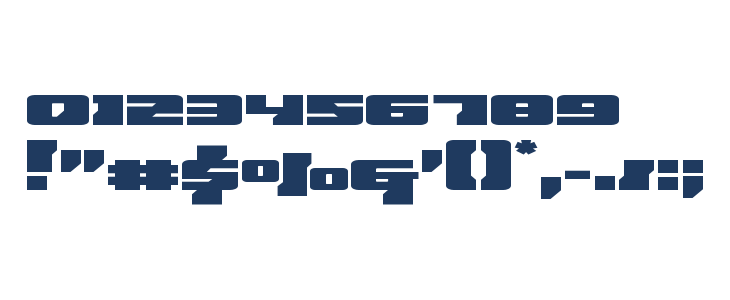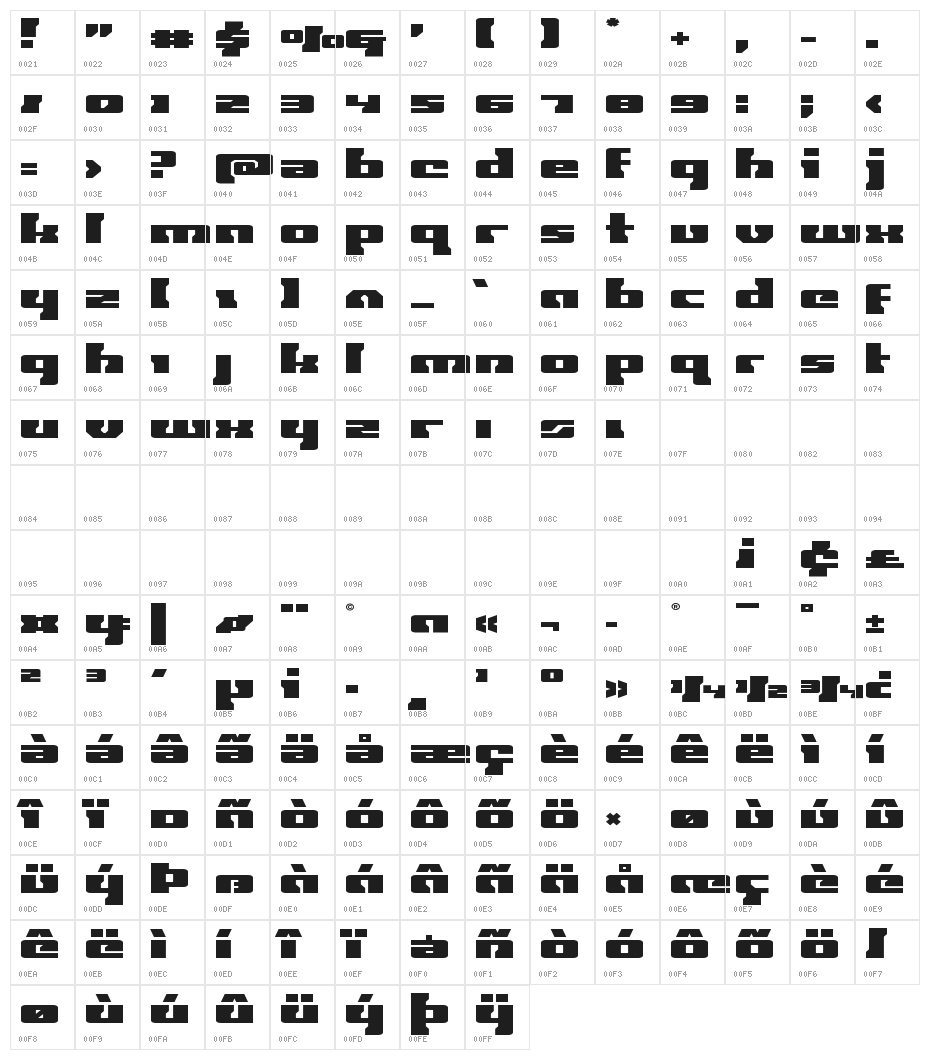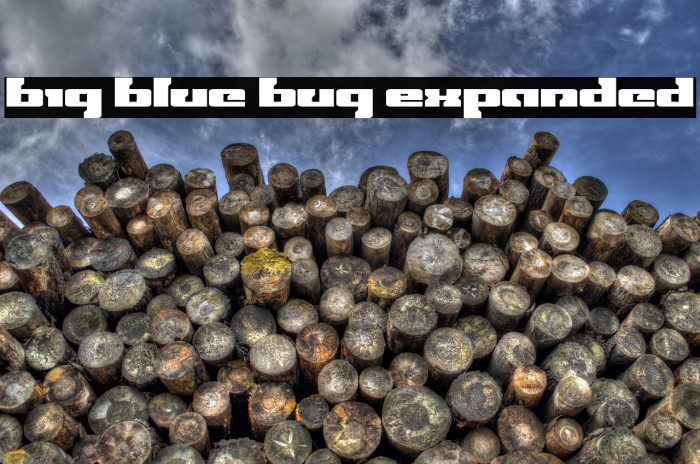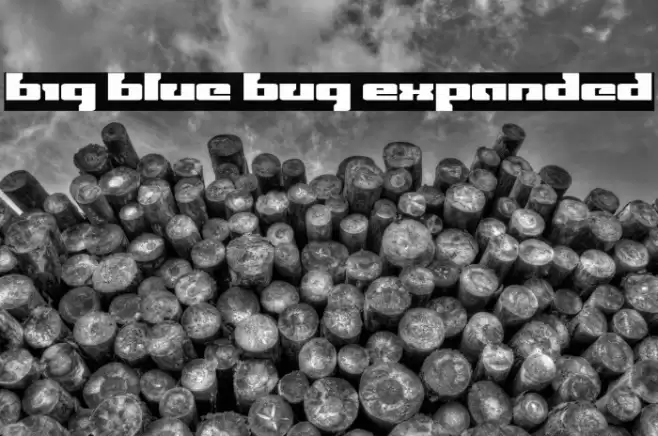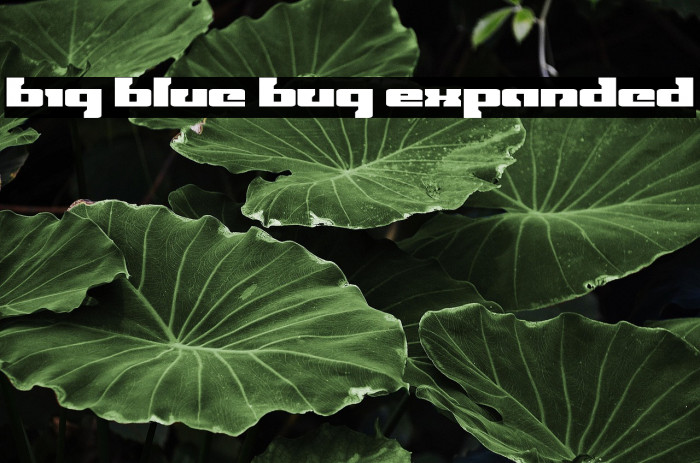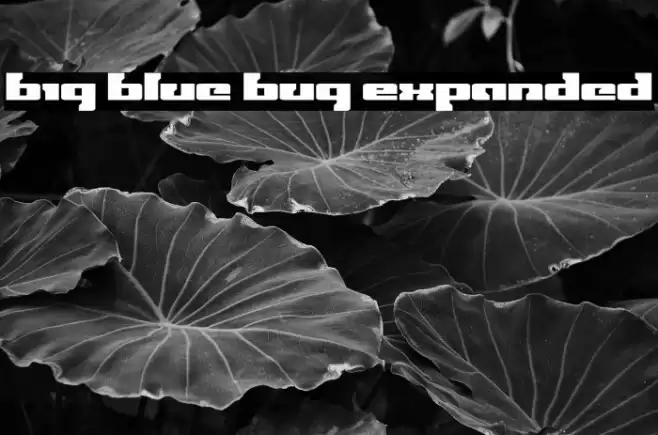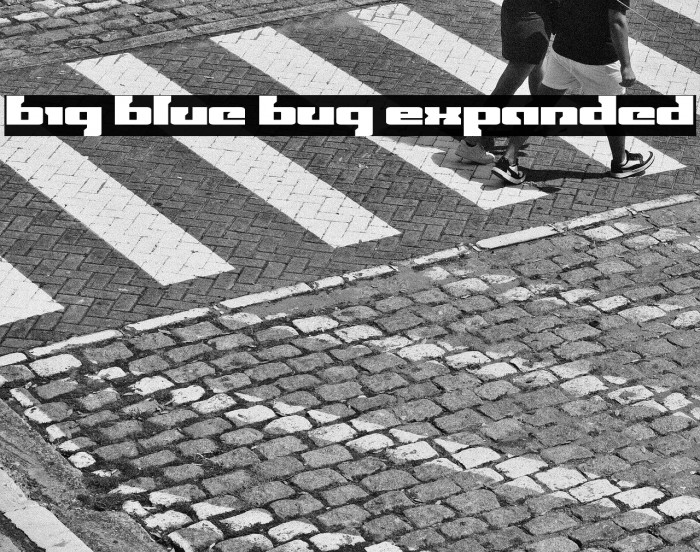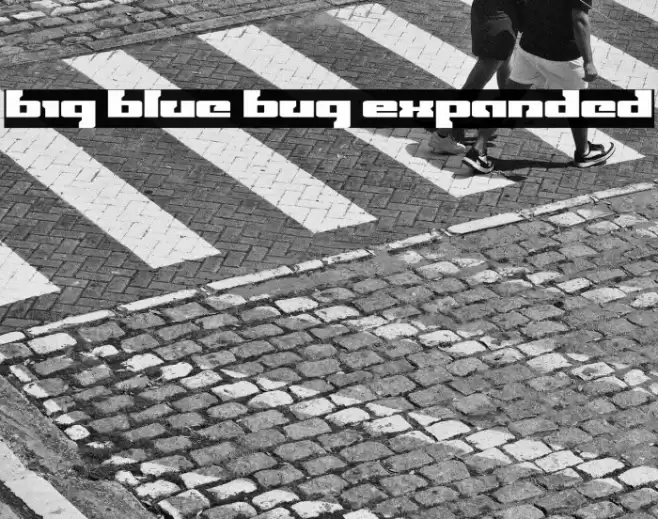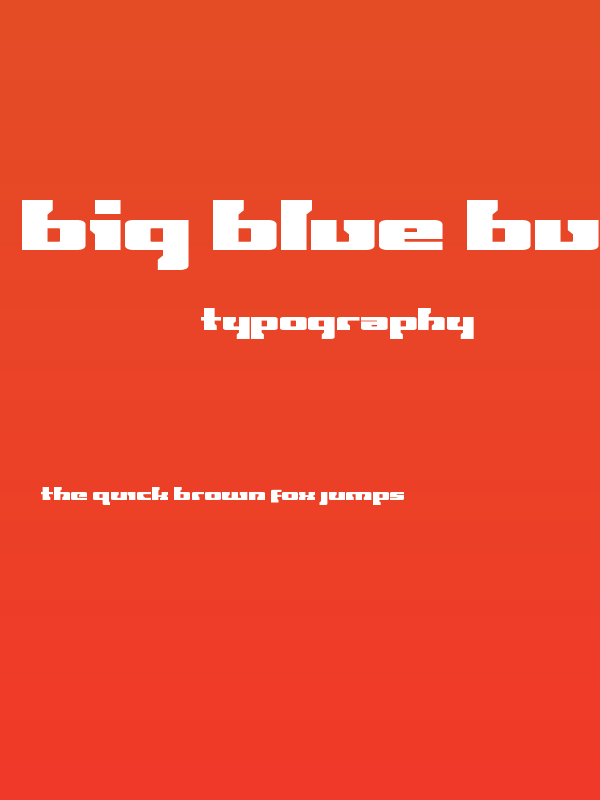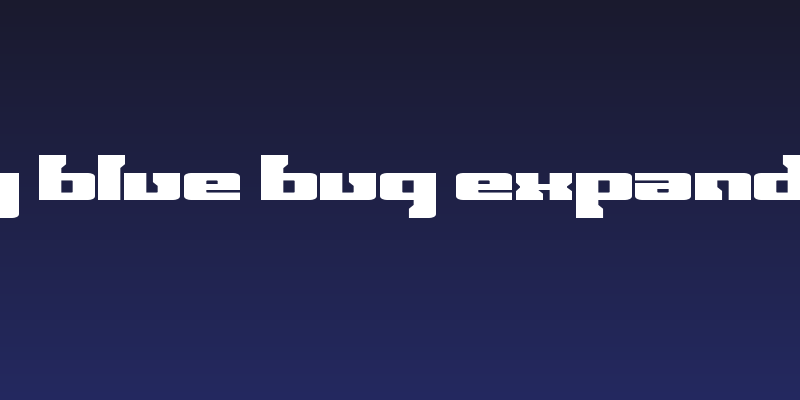
Big Blue Bug Expanded Font
Big Blue Bug Expanded Description
This font features a bold, geometric design with a strong presence. Each character is constructed with thick, block-like shapes that give it a robust and industrial feel. The letters are uniformly wide, creating a sense of stability and strength. The sharp angles and straight lines contribute to its modern and futuristic appearance. This font is highly legible, making it suitable for impactful headlines and titles. The consistent weight across all characters ensures a cohesive look, while the unique style adds a distinctive touch to any design.